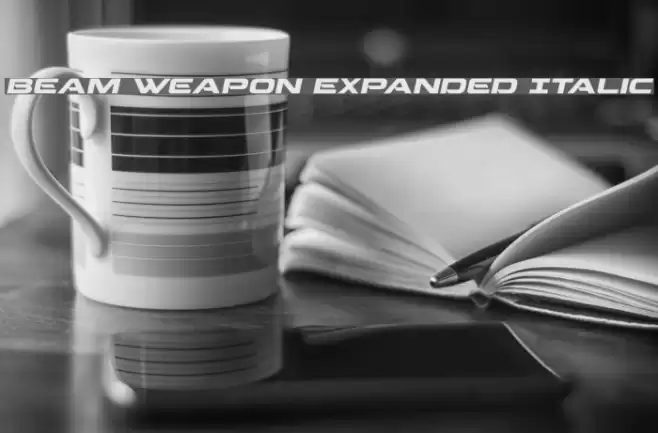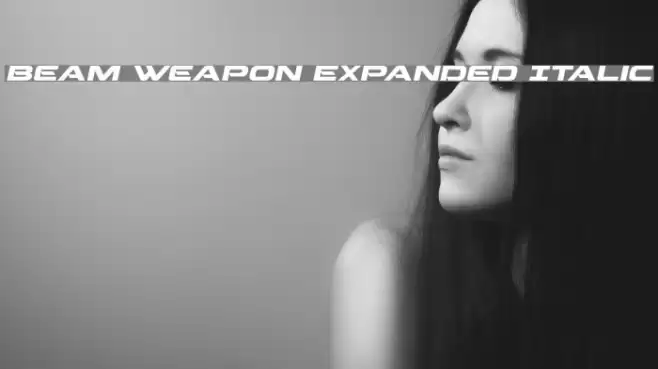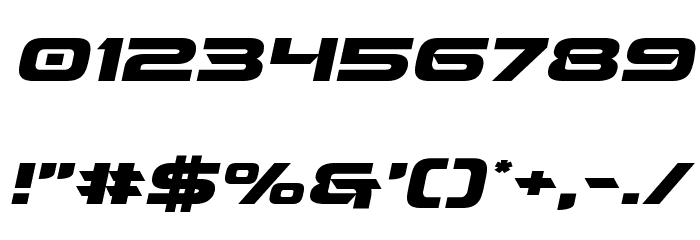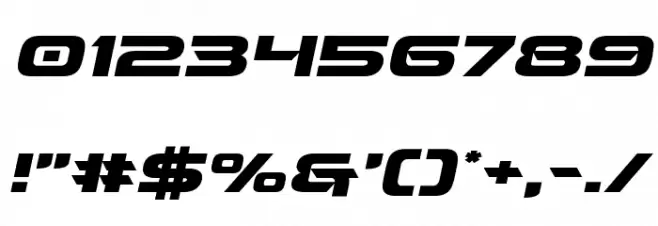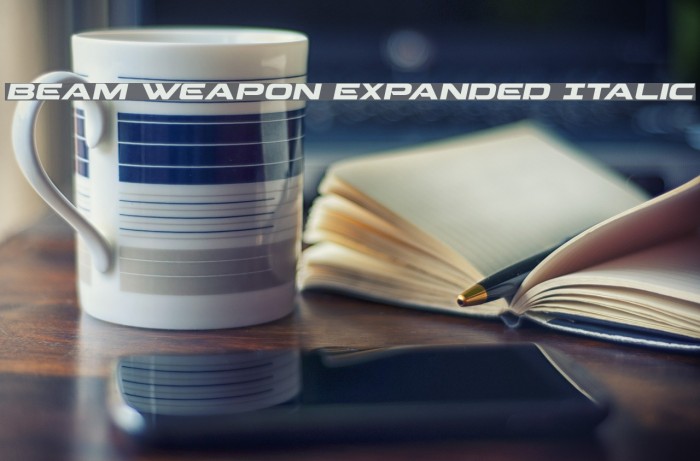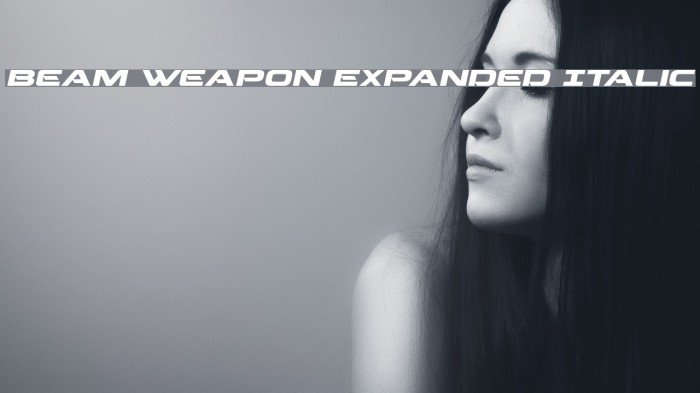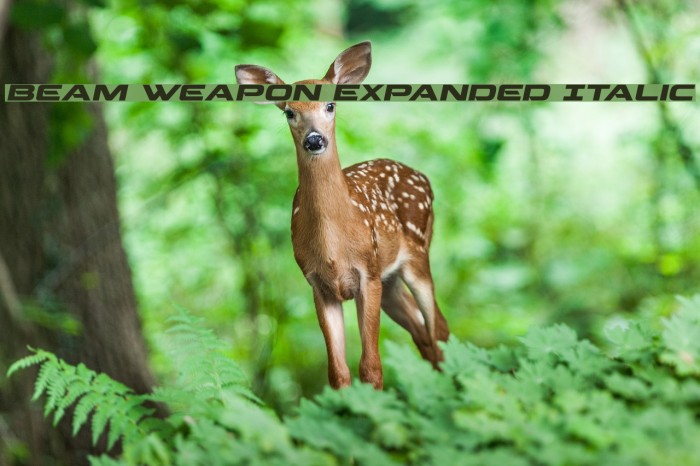
Beam Weapon Expanded Italic Font
Beam Weapon Expanded Italic Description
This font features a futuristic and dynamic design, characterized by its expanded and italicized letterforms. The characters have a bold presence with sharp angles and a sleek, aerodynamic appearance, reminiscent of high-speed technology or sci-fi themes. The uppercase and lowercase letters maintain a consistent style, with the numerals and special characters complementing the overall aesthetic. The font's expanded width gives it a commanding presence, making it suitable for attention-grabbing headlines or branding that requires a modern and edgy look.
A futuristic, expanded italic font with bold, angular letterforms from Sci-fi fonts.
- Proposed Projects: Ideal for sci-fi movie posters, tech branding, video game titles, and futuristic product packaging.